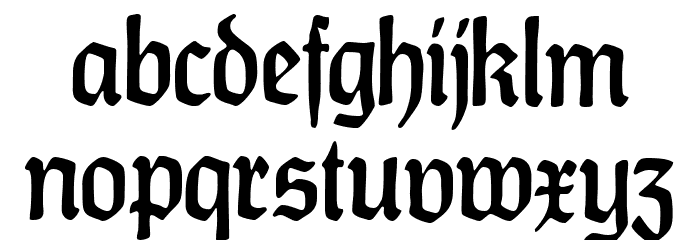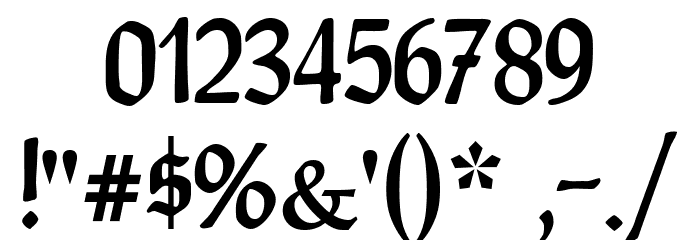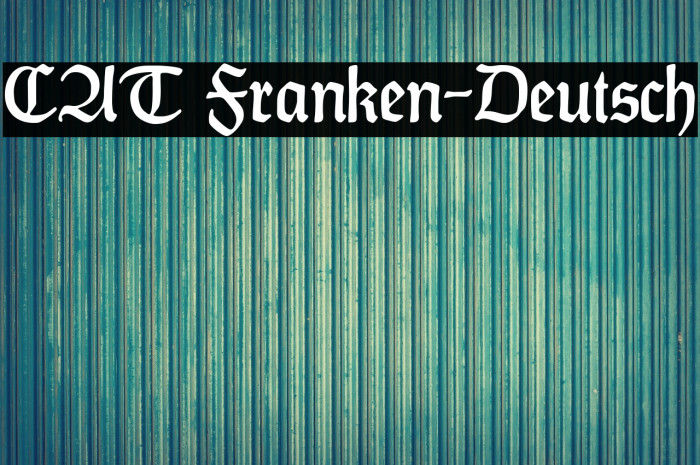
CAT Franken-Deutsch Font
This font exhibits a classic blackletter style, characterized by its ornate and intricate letterforms. The uppercase letters feature sharp, angular lines with a distinct medieval flair, while the lowercase letters maintain a consistent style with slightly more rounded edges. The numerals are bold and maintain the same decorative style, ensuring uniformity across all characters. Special characters are equally ornate, with a strong emphasis on traditional blackletter aesthetics. This font is ideal for projects that require a historical or gothic touch, offering a sense of tradition and elegance.
A classic blackletter font with ornate, medieval-inspired letterforms.
- Proposed Projects: Ideal for historical documents, gothic-themed designs, book covers, and decorative signage.
- Category: Blackletter
- Overall Style: Vintage
- Use Case: Headlines, Logos, Decorative text